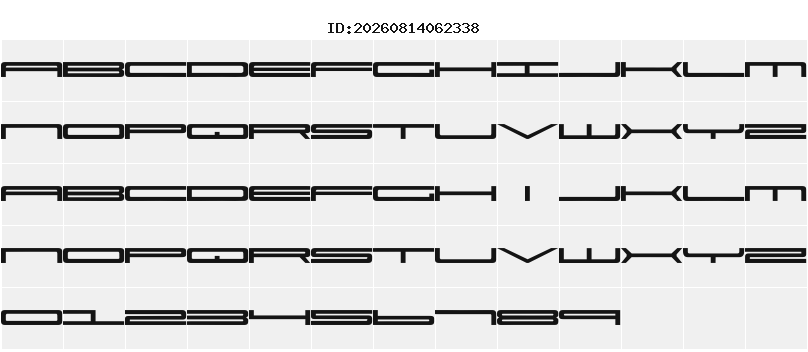
Super Ultra 911 Preview
• Font Name: Super Ultra 911
• Full Font Name: Super Ultra 911
About Super Ultra 911.ttf
Super Ultra 911.ttf is a modern, elegant sans-serif font designed for ultimate readability and visual harmony. Perfect for branding, headlines, web design, and print materials.